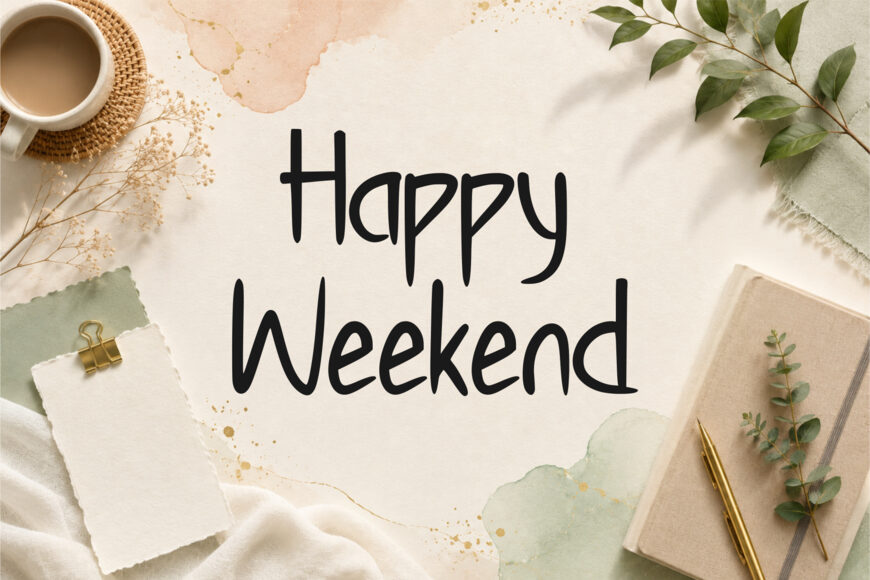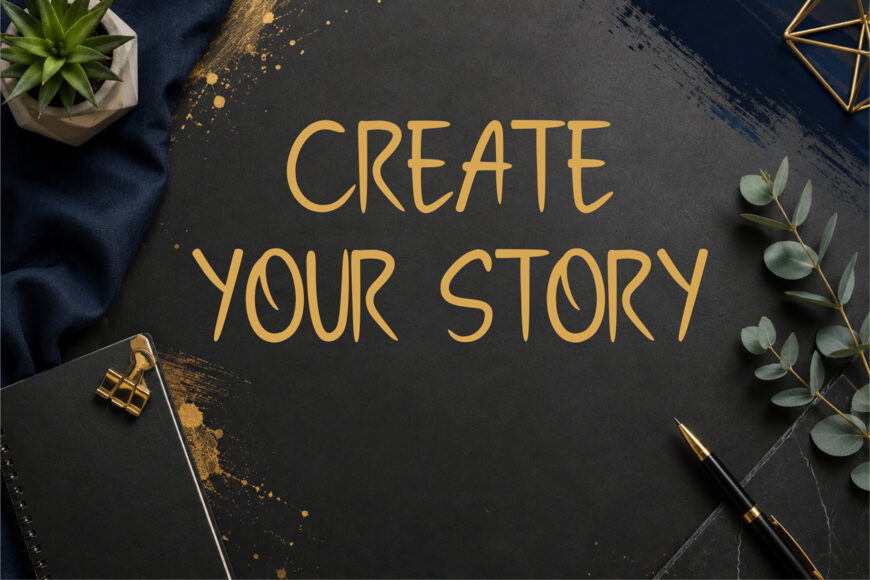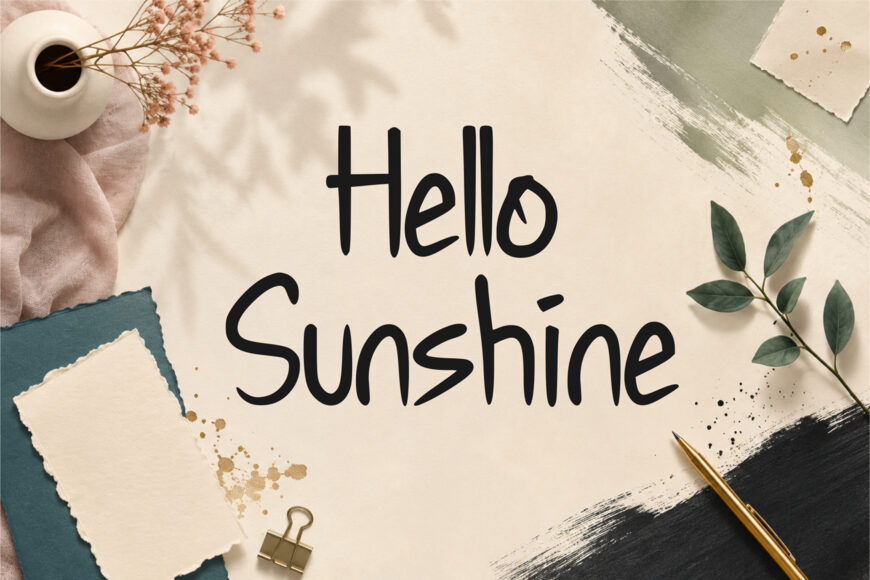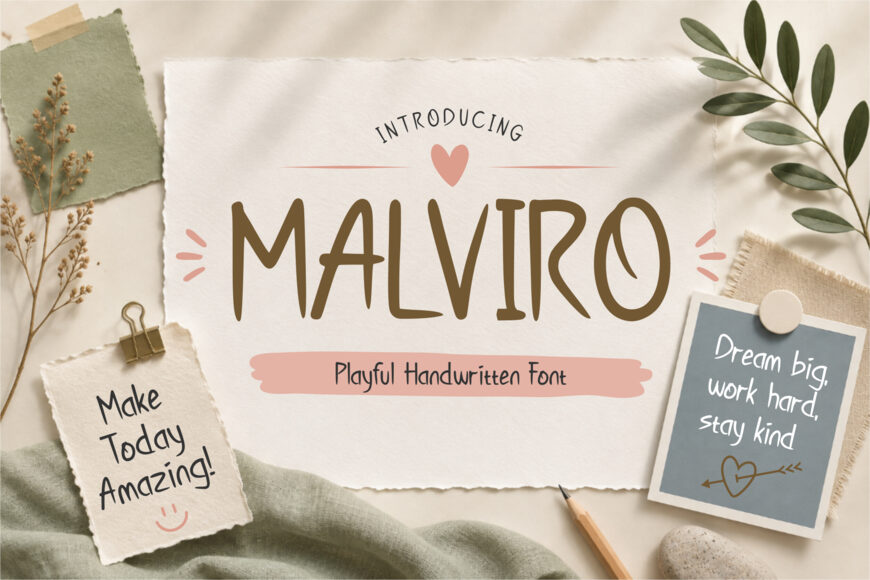
Malviro Font
Malviro is a playful handwritten font designed to bring a warm, cheerful, and personal touch to your creative projects. With its casual hand-drawn appearance, organic letterforms, and friendly character, Malviro feels natural, expressive, and full of personality.
Perfect for projects that need a fun and approachable aesthetic, Malviro works beautifully for branding, logos, greeting cards, invitations, posters, social media designs, packaging, children’s products, stationery, quotes, and lifestyle projects.